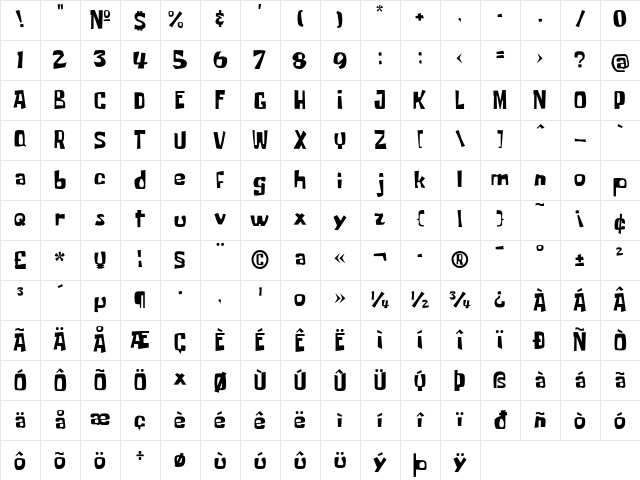
Some Time Later Regular
Design Context for Some Time Later
Some Time Later is a composed and adaptable typeface that performs quietly and consistently across a wide range of design contexts.